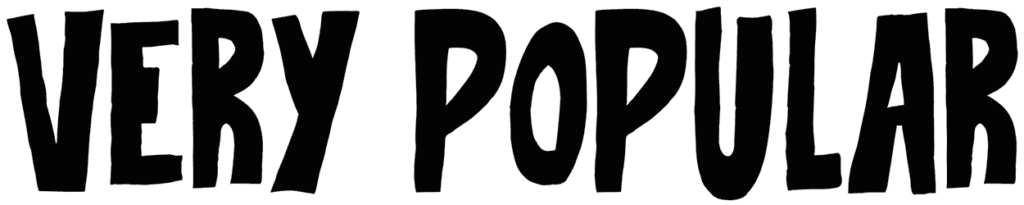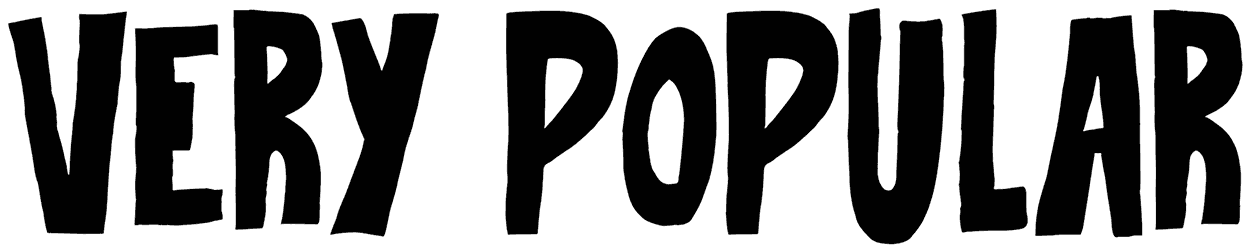
Very Popular Font
Vary your design with Very Popular as a cartoon font. With a cute and playful vibe, this fancy font is a delightful option to design text for a lot of projects, such as game screens, backgrounds, posters, and many more.…
Vary your design with Very Popular as a cartoon font. With a cute and playful vibe, this fancy font is a delightful option to design text for a lot of projects, such as game screens, backgrounds, posters, and many more. Very Popular doesn’t consist of lowercase letters, but you can use it as a distinct face with your creativity.